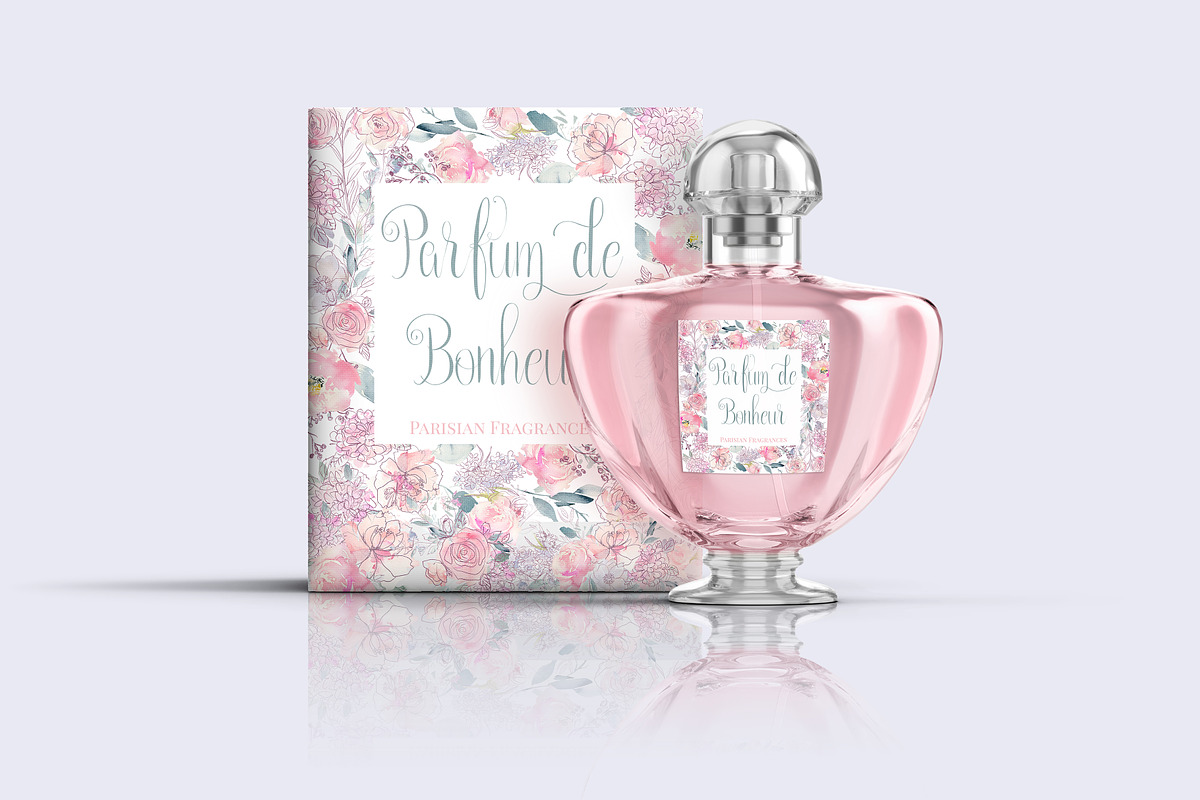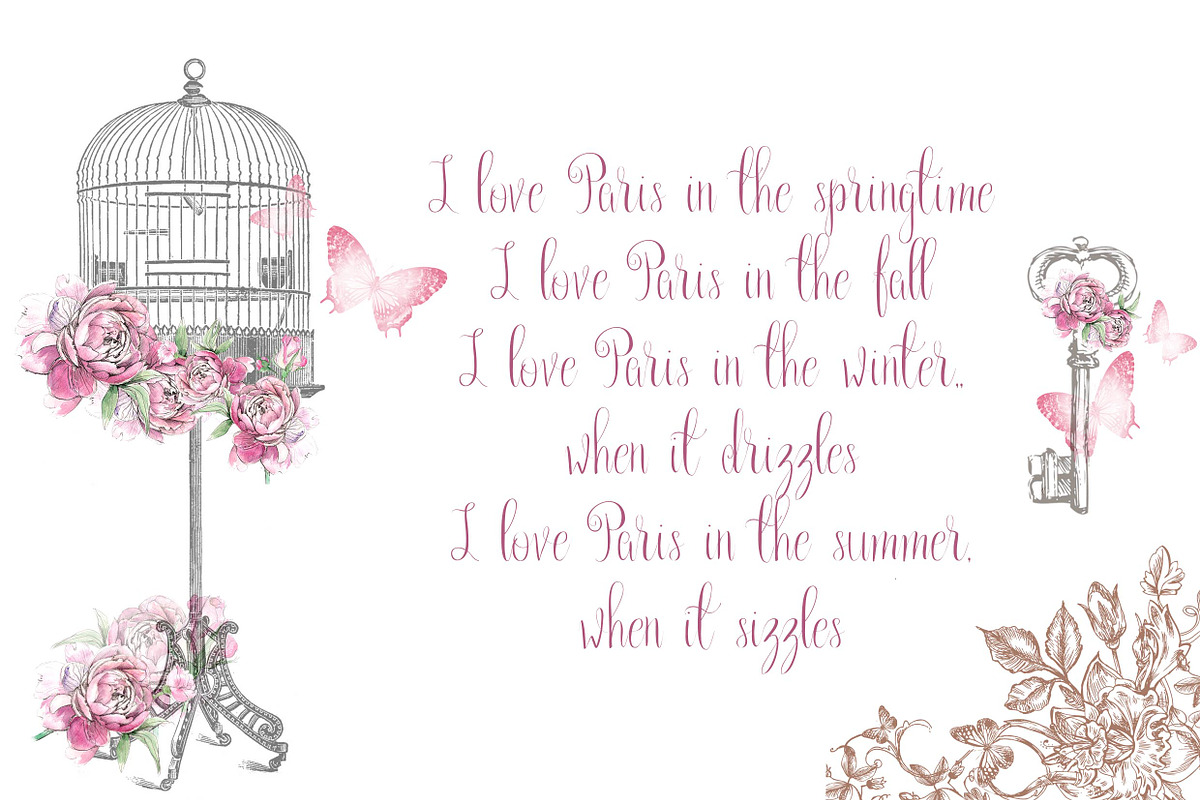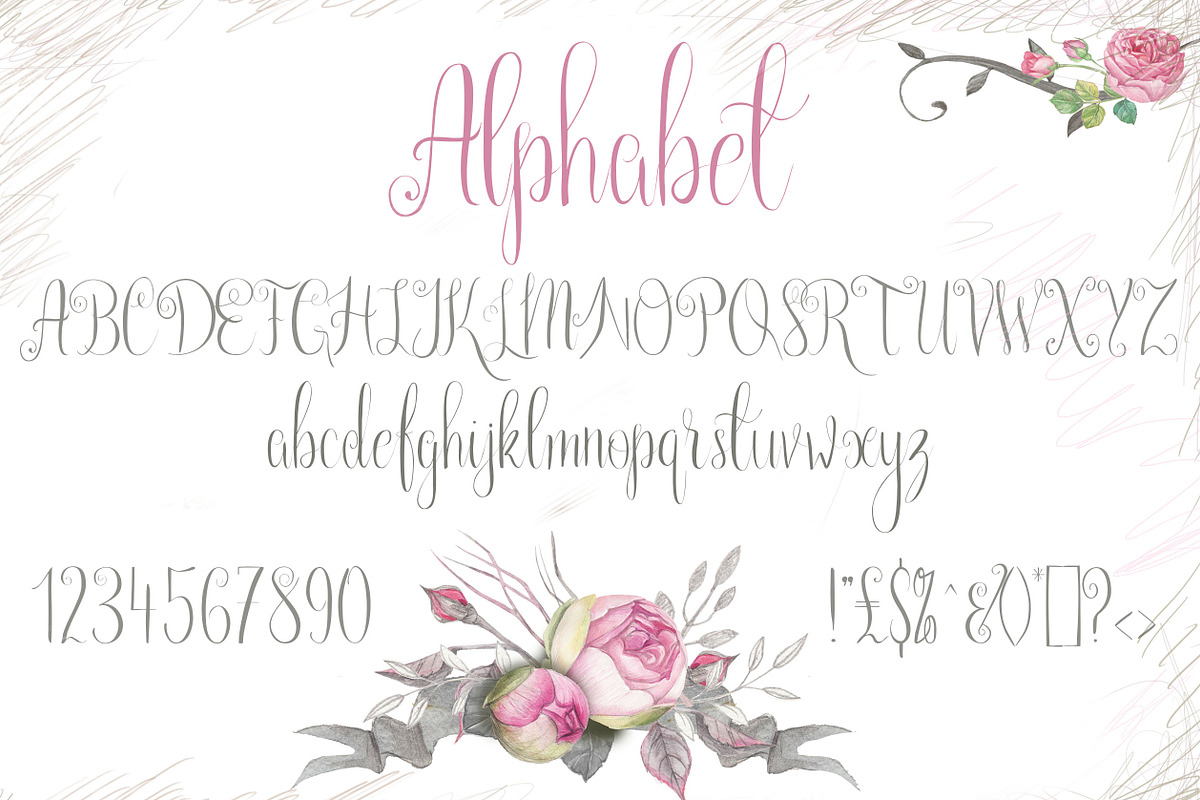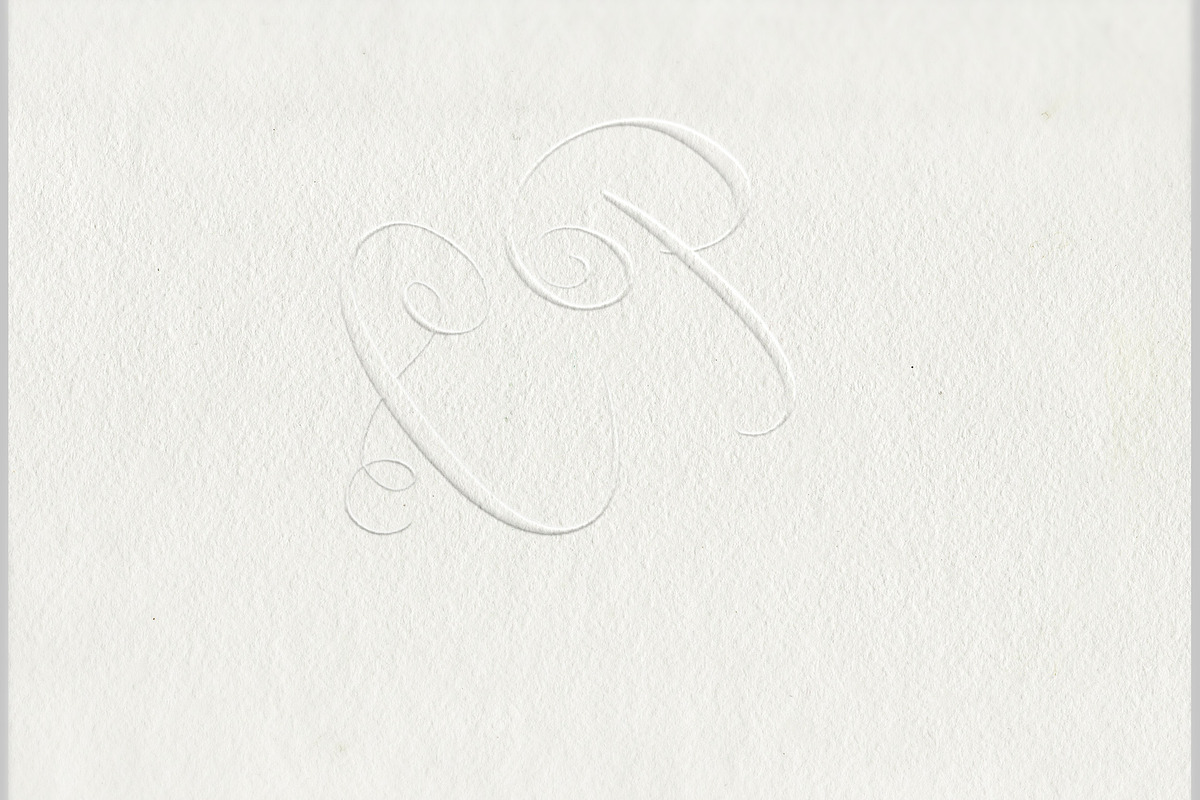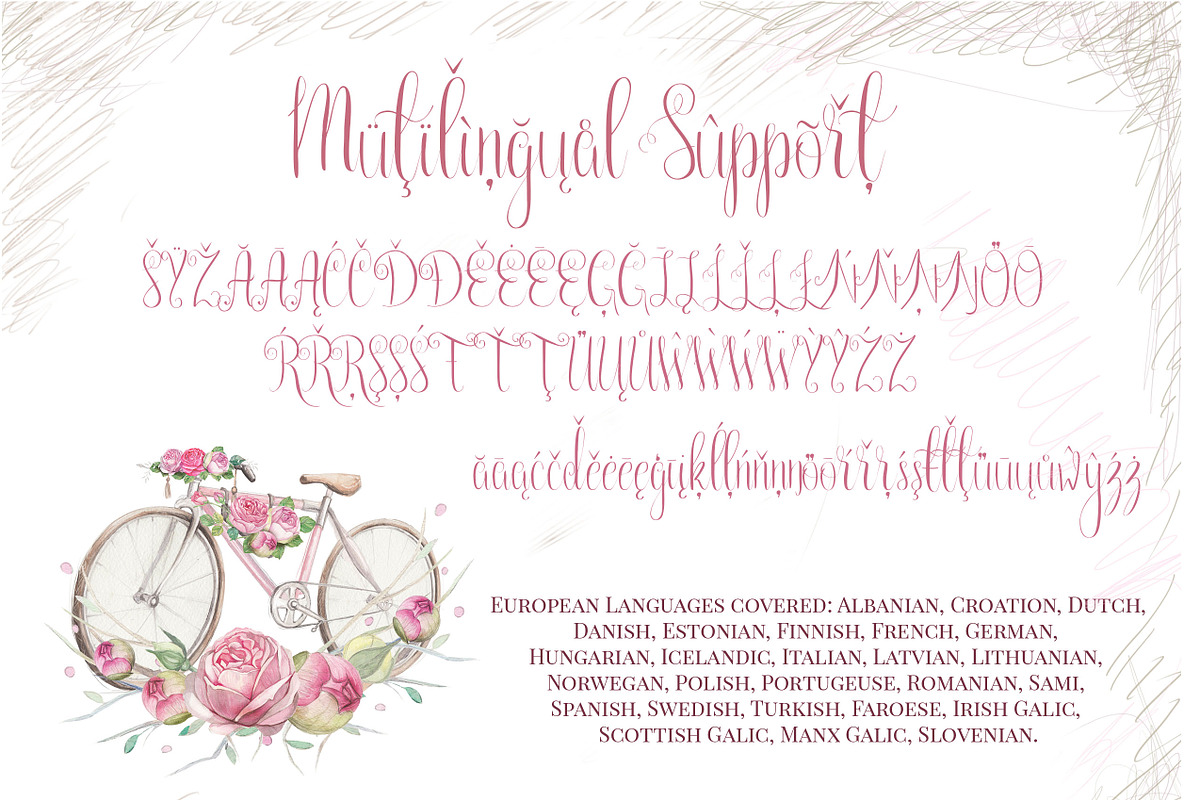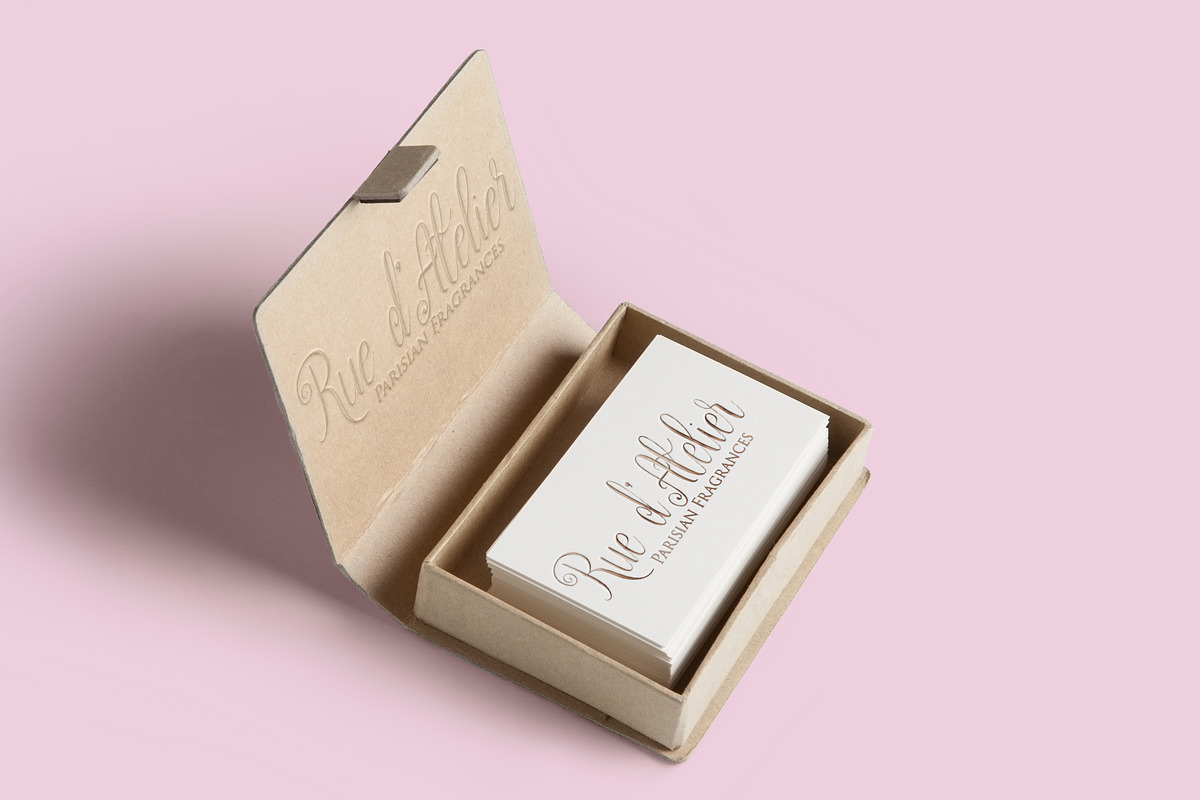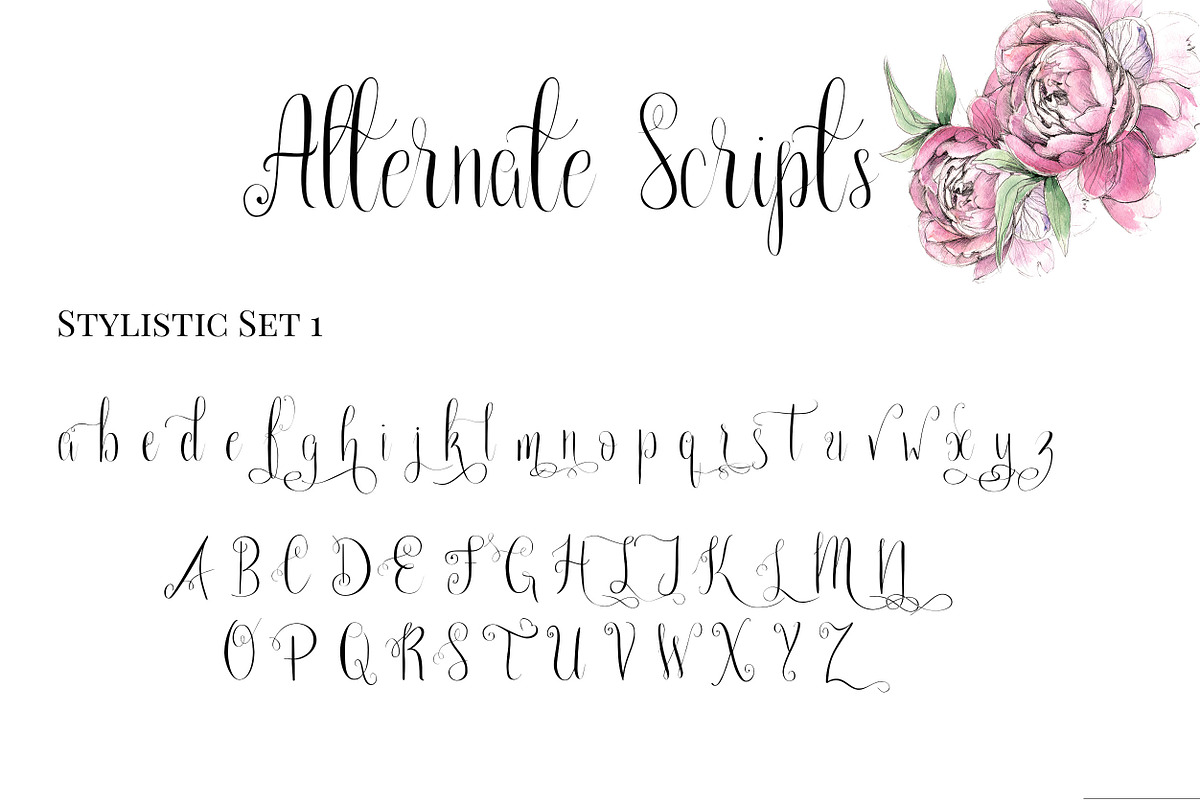
Paris in the Springtime font
This font was inspired by Paris and the roses, tulips and cherry blossoms that flower in my memory of Paris. It's delicate, chic and elegant.
Perfect for logos, invitations, wedding invites, cards and product packaging wherever you need and elegant and chic font.
Includes more that 450 characters. With a complete set of upper and lower case, a regular, slant and bold version, and a complete upper and lower case stylistic set which gives a large range of looks and feels for the diferent projects.
Open type features include
Contextual alternatives
Stylistic alternatives
European Languages covered: Albanian, Croation, Dutch, Danish, Estonian, Finnish, French, German, Hungarian, Icelandic, Italian, Latvian, Lithuanian, Norwegan, Polish, Portugeuse, Romanian, Sami, Spanish, Swedish, Turkish, Faroese, Irish Galic, Scottish Galic, Manx Galic, Slovenian.